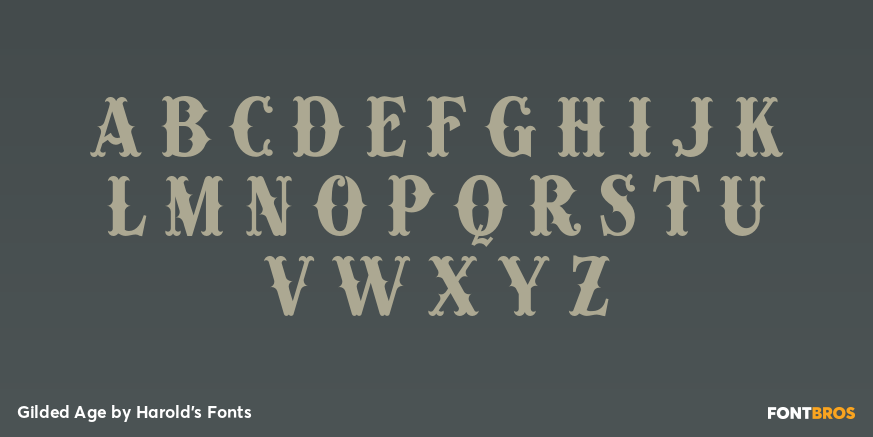
Gilded Age
Font Family by Harold's Fonts
GILDED AGE is a set of ornate fonts with decorative details reminiscent of that period, the late 19th century in the US. Tricked out with "mustachio" serifs, spurs, and inlines, Gilded Age captures the flashy ornamentation the name suggests. The set includes upper- and lowercase, with and without the engraved lines, and a large and small caps version including extra fancy large caps.
By the way, my font set predates the popular TV series, although it would fit right in! It was inspired by the opening titles of the 1952 film "Casque d'Or" directed by Jacques Becker.